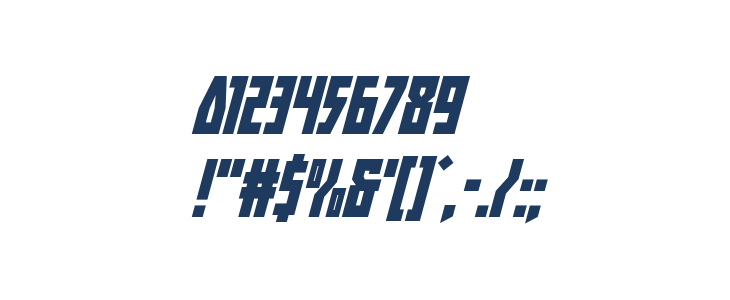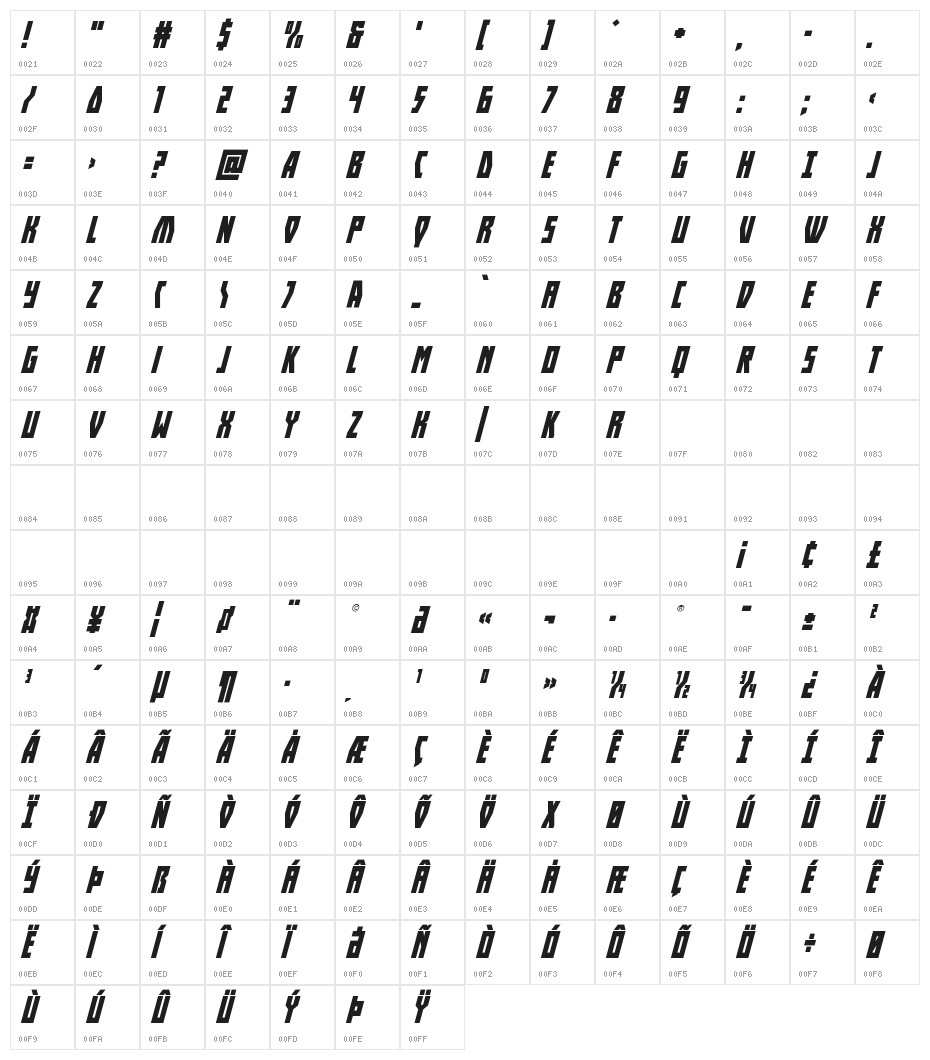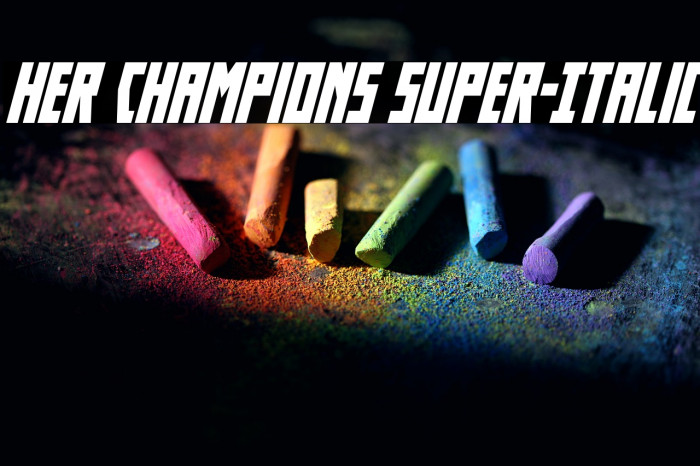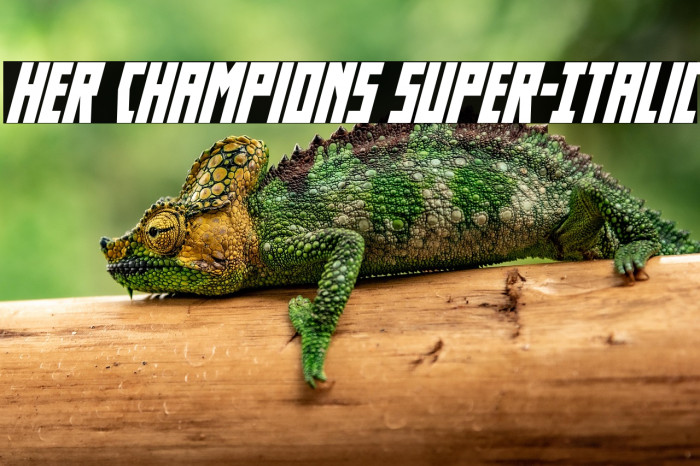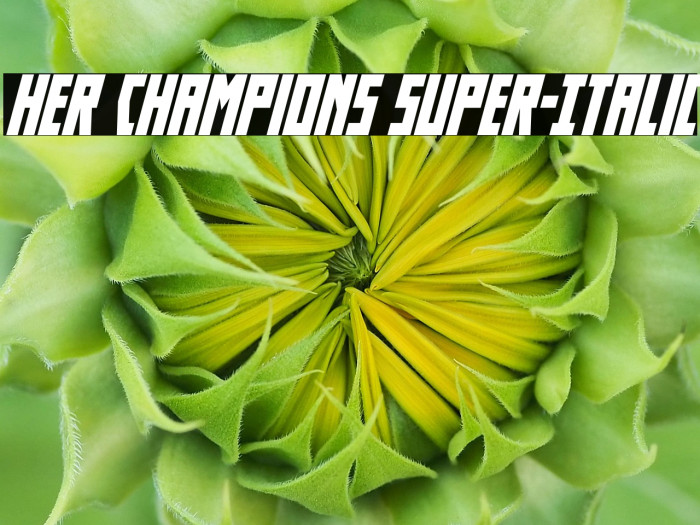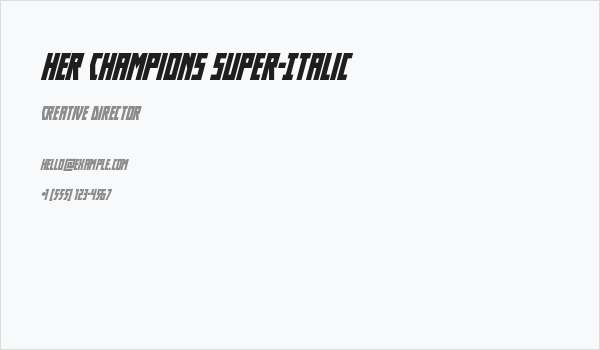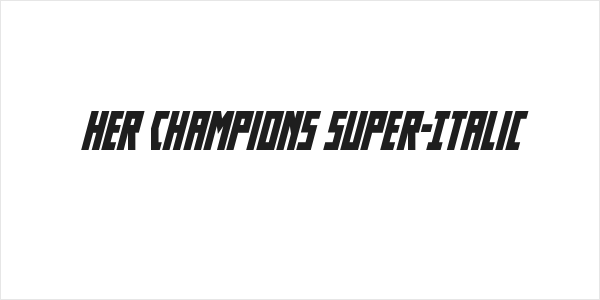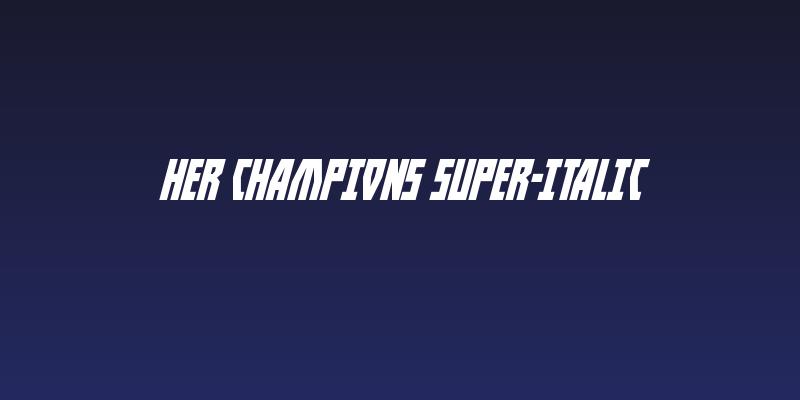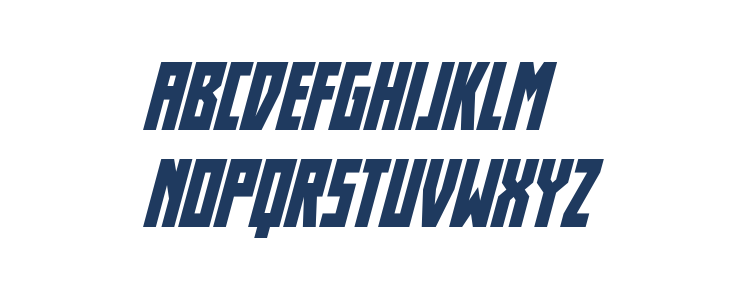
Her Champions Super-Italic Font
Her Champions Super-Italic Description
This font features a bold and dynamic style with a strong italic slant, giving it a sense of movement and energy. The characters are sharply angled, with thick strokes that create a powerful presence. The uppercase and lowercase letters maintain a consistent style, emphasizing the font's cohesive design. Numbers and special characters are equally bold, ensuring readability and impact. This font's design is ideal for making a statement, with its aggressive and modern aesthetic.
| Proposed Projects | Ideal for sports branding, action-themed posters, dynamic logos, and eye-catching headlines. |